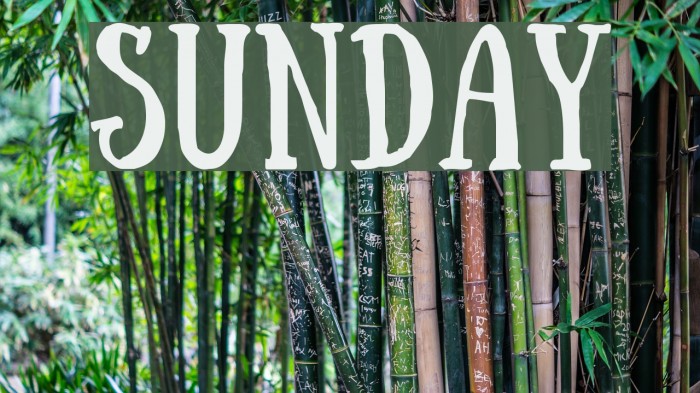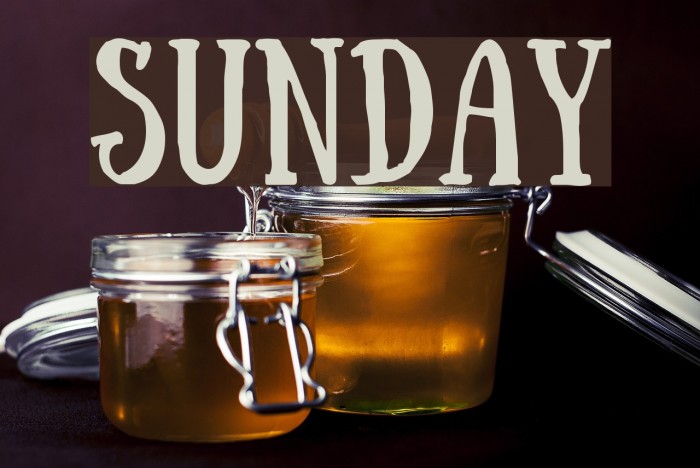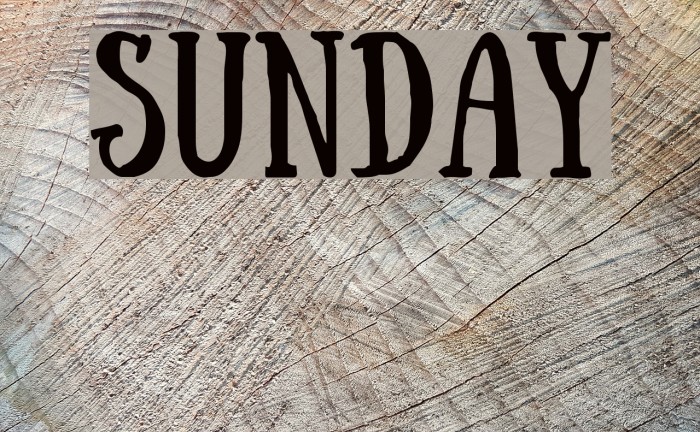
Sunday Font
Sunday Description
This font features a bold and expressive style with a hand-drawn appearance. The characters have a slightly irregular shape, giving them a unique and artistic flair. The uppercase letters are tall and commanding, while the lowercase letters maintain a consistent style with a playful touch. Numbers are bold and clear, making them easily readable. Special characters are creatively designed, adding to the font's overall charm. The strokes are thick, with medium contrast, enhancing the font's visibility and impact.
| Overall Style | Artistic, Playful |
| Proposed Projects | Ideal for creative projects such as posters, branding, and packaging design, where a bold and artistic statement is needed. |